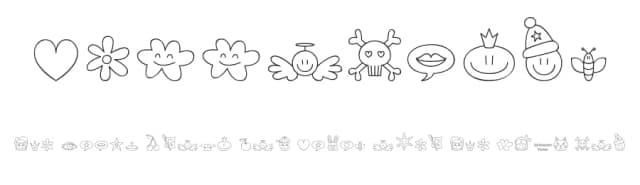
About Smudgers Font
| Designer | Tjarda Koster |
Smudgers Font is a decorative font that shines as a display or heading face. Pair it with a clean sans-serif or serif font for body text β the contrast creates a clear hierarchy while the two styles stay balanced and easy to read.
Smudgers Font